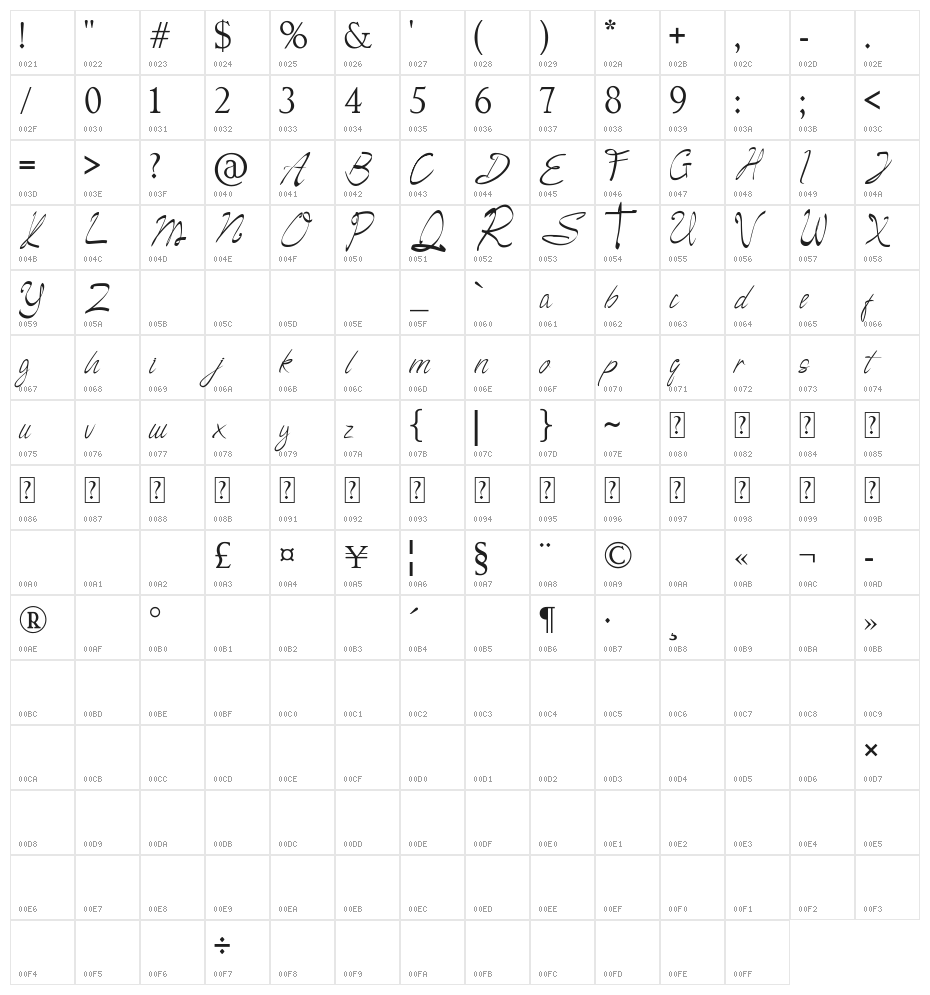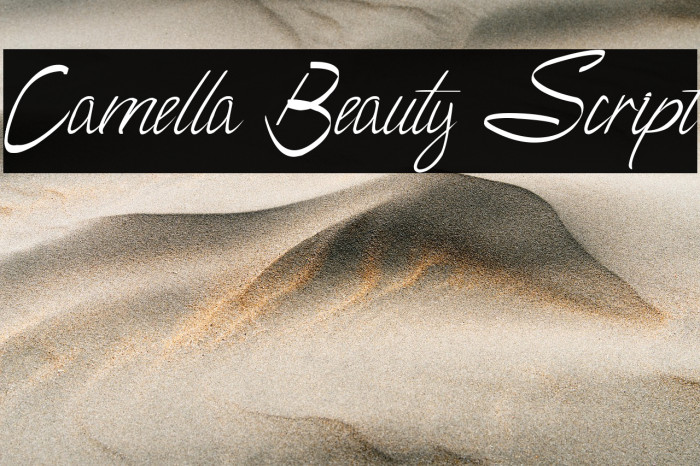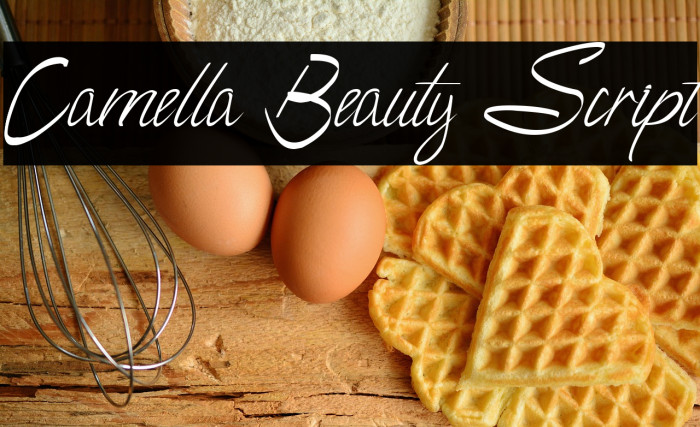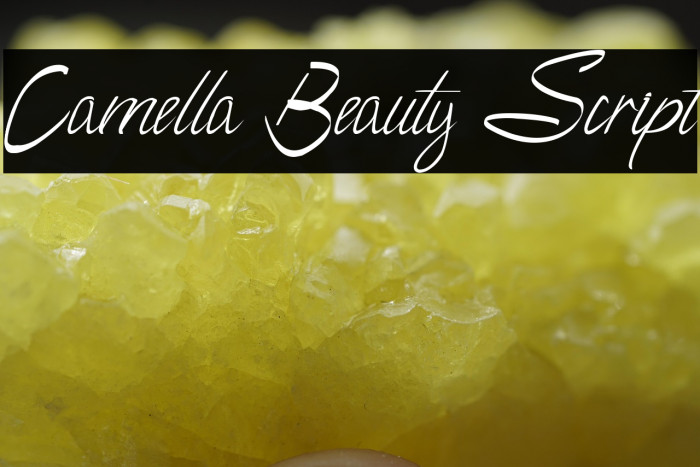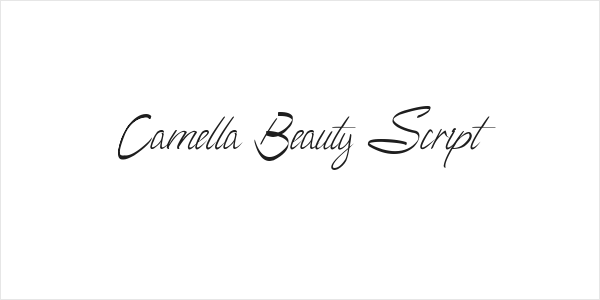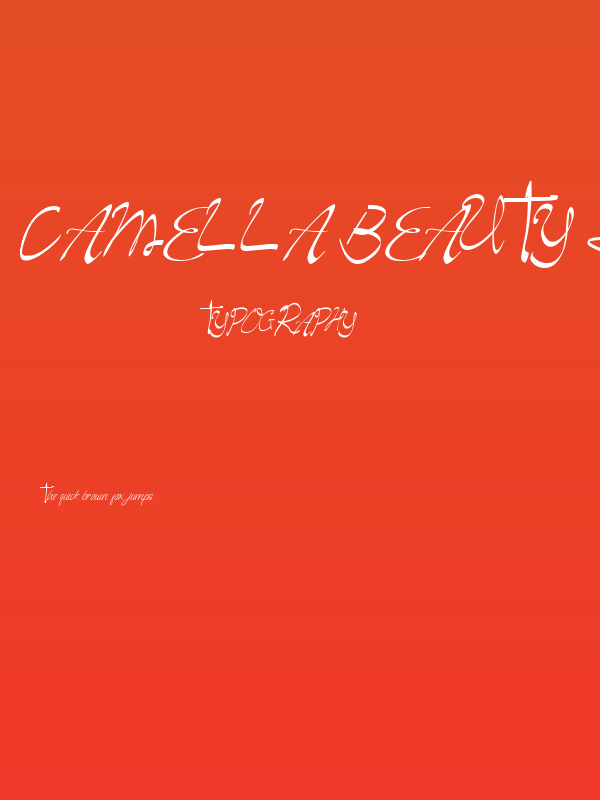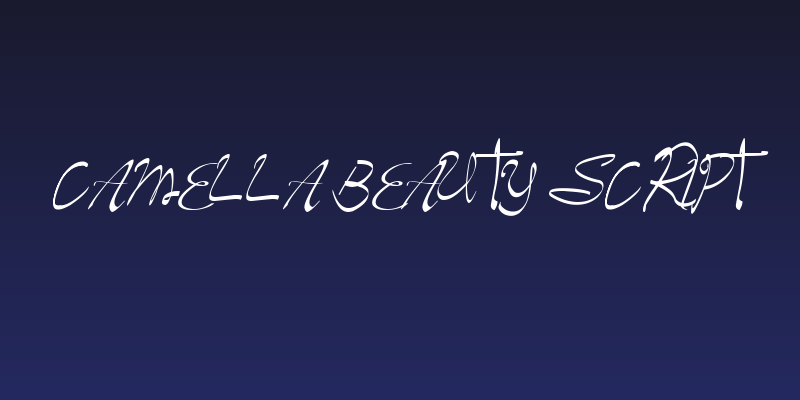
Camella Beauty Script Font
Camella Beauty Script Description
This elegant script font features a flowing, cursive style with a modern twist. The uppercase letters are bold and sweeping, with dramatic flourishes that give a sense of movement and grace. The lowercase letters maintain a consistent slant, enhancing the script's fluidity and elegance. Numbers and special characters are designed to complement the letters, maintaining the same stylish and sophisticated appearance. The overall look is both artistic and readable, making it suitable for a variety of design projects.
| Proposed Projects | Ideal for wedding invitations, greeting cards, branding, and elegant logo designs. |